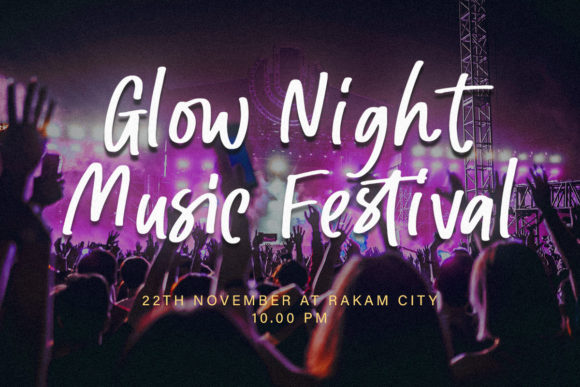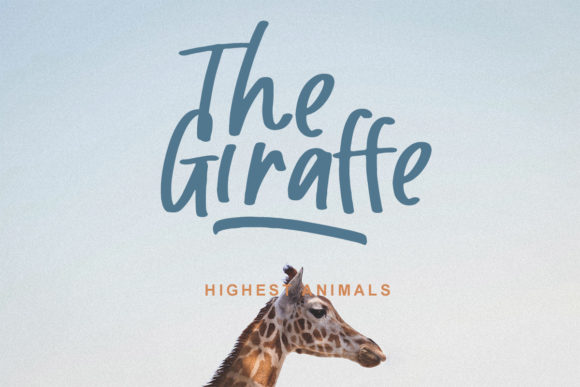
Movelite Font
db-ku.com - Script & Handwritten -- Movelite is a smooth script font with many ligatures. This font was made for the perfect combining of unique but simply character. It is PUA encoded which means you can access all glyphs and swashes with ease!